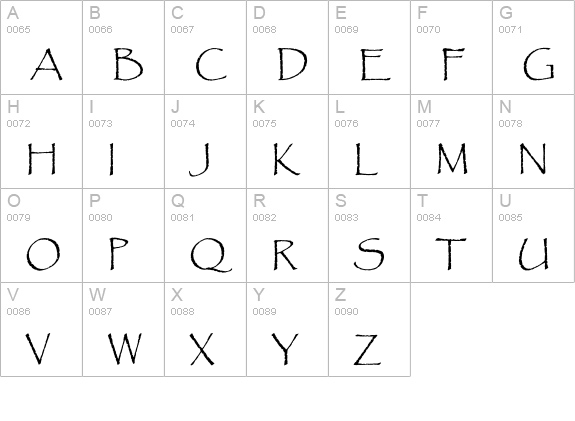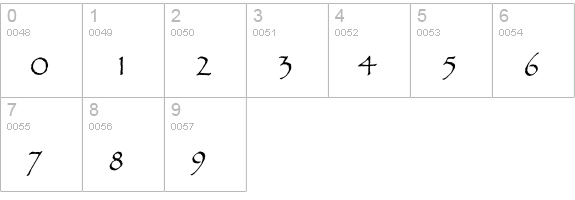
PapyrusICG Font Details
PapyrusICG font is a stunning and versatile typeface that exudes elegance and sophistication. With its unique combination of calligraphic elements and modern design, this font is perfect for a wide range of creative projects. This font features intricate details and graceful curves that add a touch of artistic flair to any text. Its flowing lines and delicate strokes create a sense of movement and fluidity, making it ideal for designs that require a touch of dynamism. Whether used for headlines, logos, or body text, PapyrusICG font stands out with its distinctive and captivating aesthetic. One of the best things about PapyrusICG font is that it is freely available to download at FontsMarket.com. This means that you can access this incredible typeface without any cost or restrictions. Whether you are a professional designer or an aspiring artist, this free font allows you to unleash your creativity and bring your ideas to life. PapyrusICG font is also highly versatile, making it suitable for a wide range of design projects. From wedding invitations to branding materials, from website headers to social media graphics, this font can elevate your designs and give them a unique and memorable touch. Furthermore, PapyrusICG font is compatible with various design software and platforms, ensuring seamless integration into your existing workflow. Its extensive character set and multiple alternates provide you with endless possibilities for customization and personalization. Whether you are looking to add a touch of elegance to your designs or want to make a statement with your typography, PapyrusICG font is the perfect choice. And with its availability as a free download on FontsMarket.com, there is no reason not to give this beautiful font a try. Unlock your creativity and download PapyrusICG font today to embark on a typographic journey like no other.